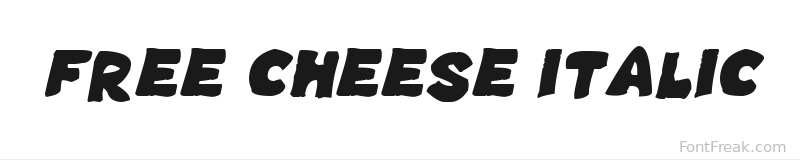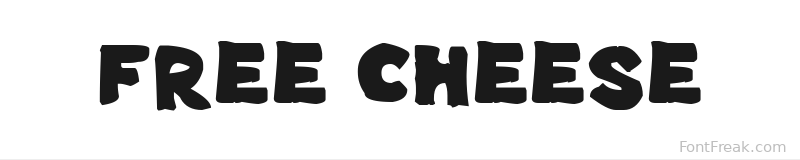
Free Cheese
Free Cheese Italic
About Free Cheese
The Free Cheese font by GGBot is a delightful and playful display typeface that brings a touch of whimsy to any design project. With its unique, bold letterforms, this font falls into the decorative category, making it an eye-catching choice for various applications. The strokes are thick and rounded, providing a friendly and approachable aesthetic, while the slight variations in weight add a dynamic quality to the overall design. The spacing between the letters is generous, enhancing readability and making it perfect for larger text settings.
Ideal for a range of creative projects, the Free Cheese font is particularly well-suited for restaurant menus, where its playful nature can evoke a sense of fun and enjoyment associated with dining. Additionally, it works wonderfully for children's book covers, where a lighthearted feel is essential. Event invitations, especially for casual gatherings or birthdays, can benefit from its charming appearance, capturing the festive spirit. Graphic designers and content creators will also find it perfect for social media graphics and promotional materials that aim to attract attention and convey a sense of personality.
What sets the Free Cheese font apart is its ability to blend fun with functionality, making it a versatile choice for both professional and personal use. Its distinctive style ensures that your text will not only stand out but also convey a sense of joy and creativity, making it an essential addition to any designer's toolkit.